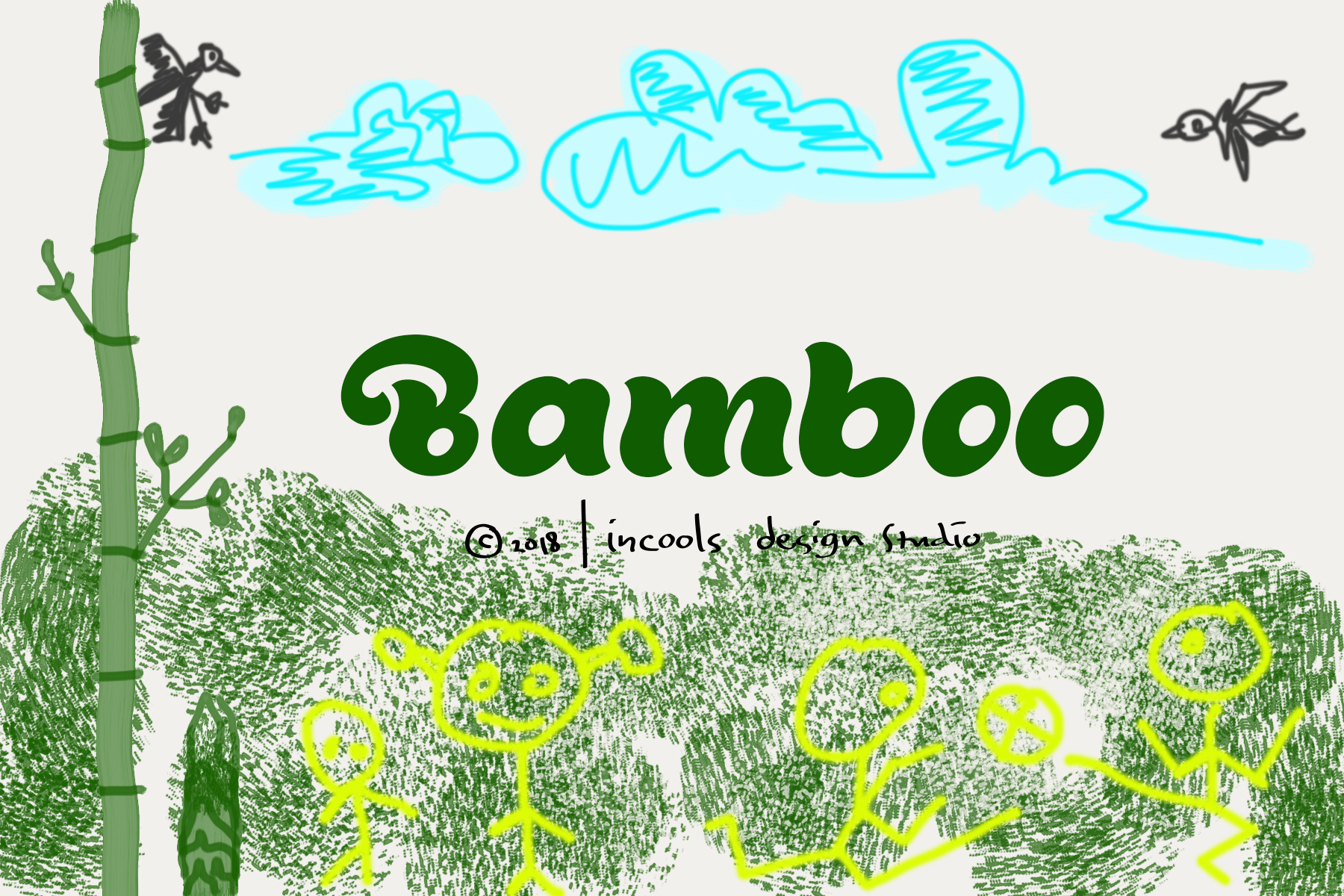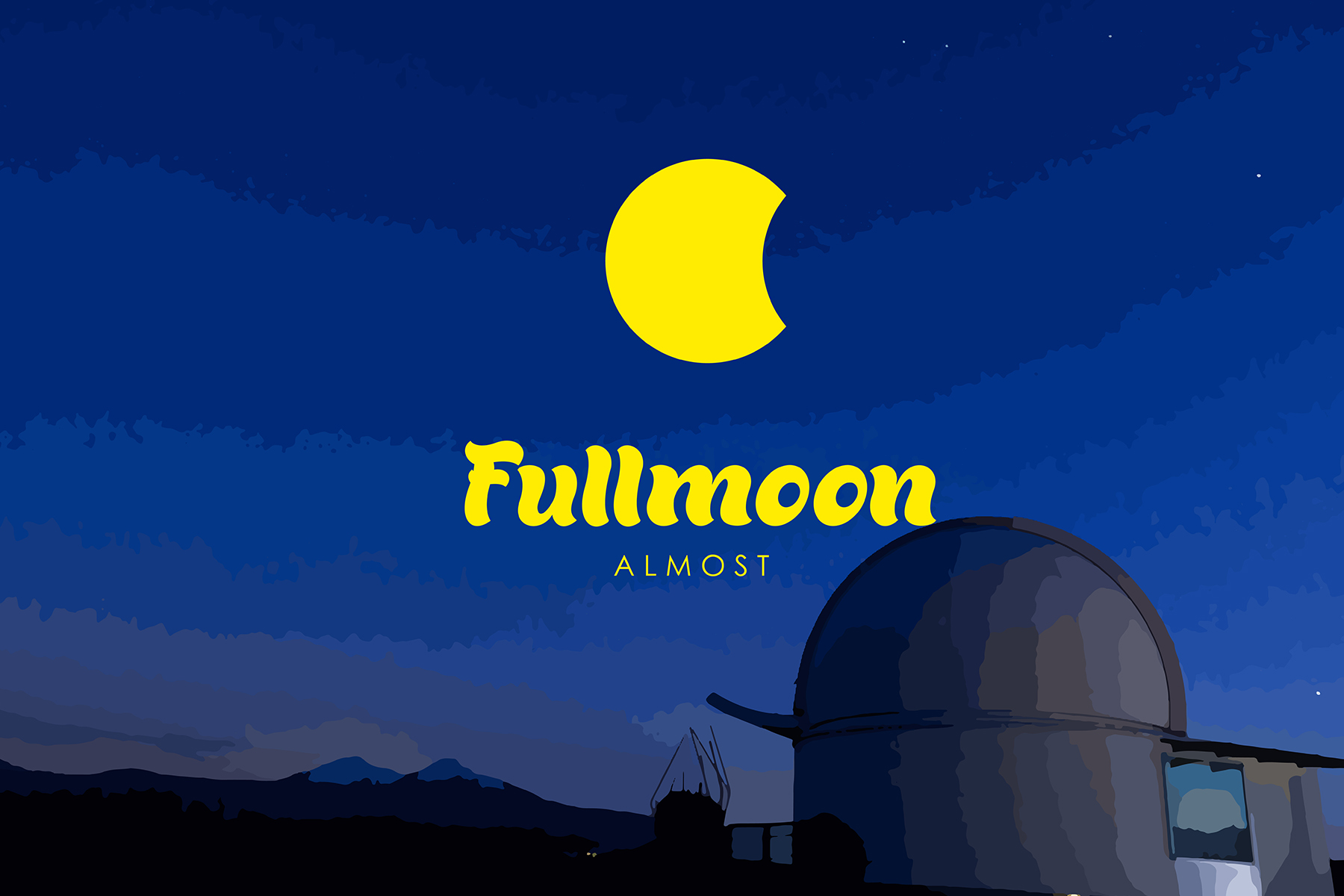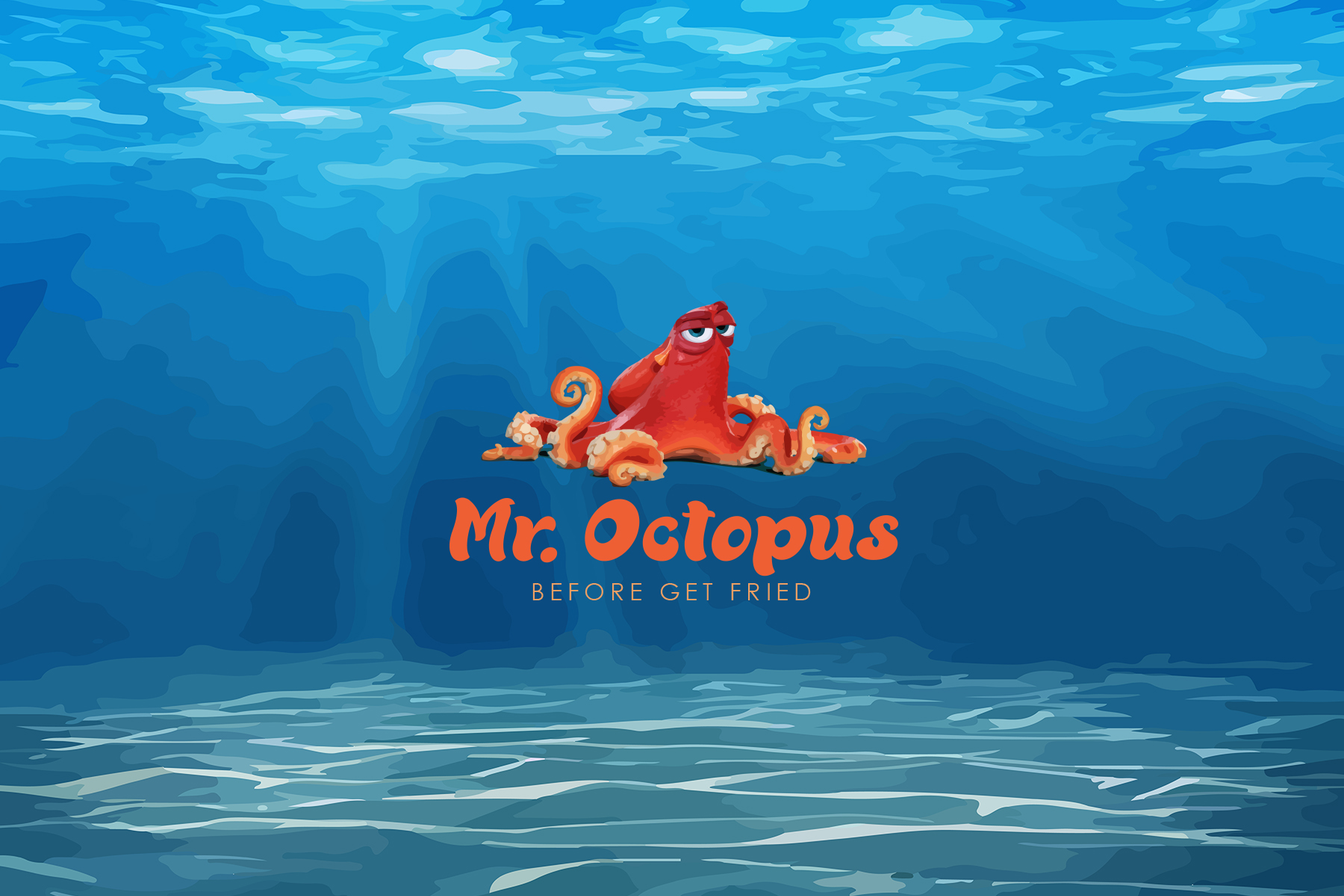
Bamboo Font
About Bamboo Font
Bamboo is a playful, wavy font with a fun natural flow. It’s bold rounded letters give it a friendly exterior.
The font has a bit of a retro sixties look which works great for vintage designs.